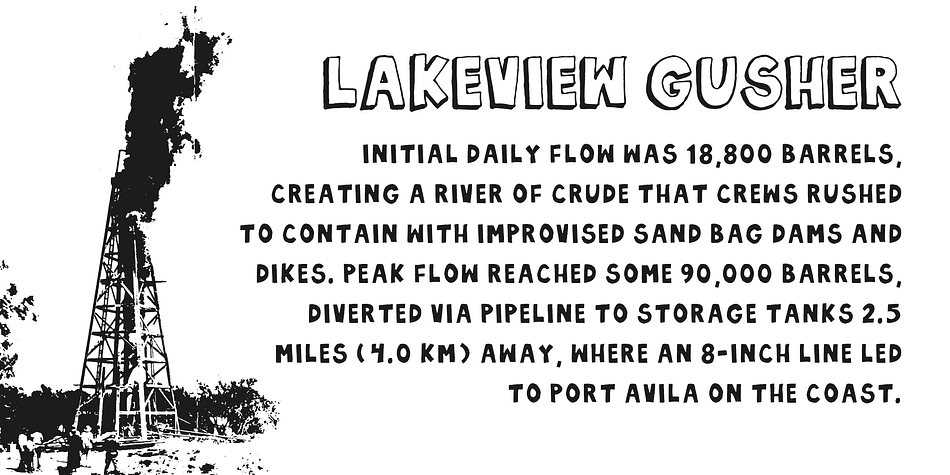
FORD CITY
Designed by Shawn Hooghkirk, Ford City is a comic and hand drawn font family. This typeface has two styles and was published by Graticle, Inc.
Ford City is a hand drawn, handwritten, blue collar font.
Ford City comes in two weights with identical characters for layering and creating shadows.
Both weights include uppercase characters and a variety of symbols.
Displaying the beauty and characteristics of the Ford City font family.
Ford City is a hand drawn, handwritten, blue collar font.
Ford City comes in two weights with identical characters for layering and creating shadows. Both weights include uppercase characters and a variety of symbols.